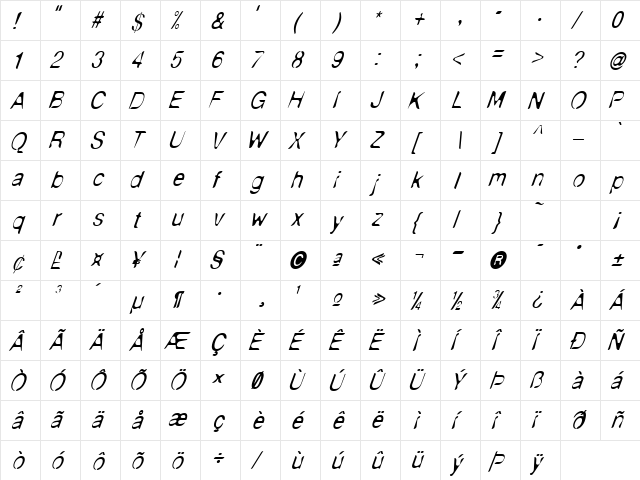
NudE Anorexic Italic Regular
Design Context for NudE Anorexic Italic Typeface
NudE Anorexic Italic is a composed and adaptable typeface that performs quietly and consistently across a wide range of design contexts. The slanted form adds forward momentum and visual energy.
Pro Tip: Try NudE Anorexic Italic for annotation and caption copy alongside an upright companion — the contrast in angle creates a dynamic but ordered typographic system.